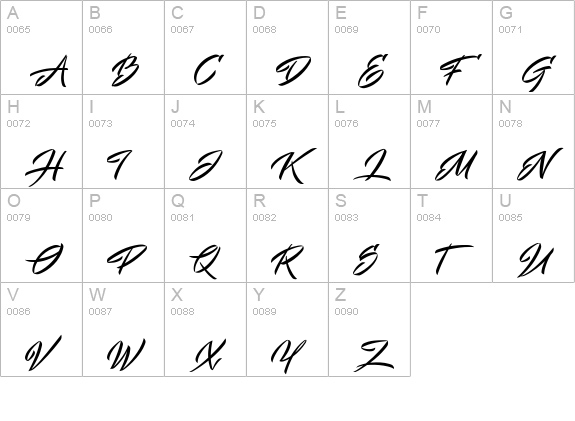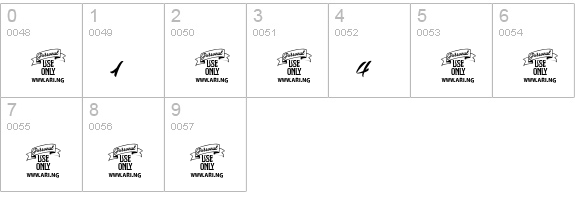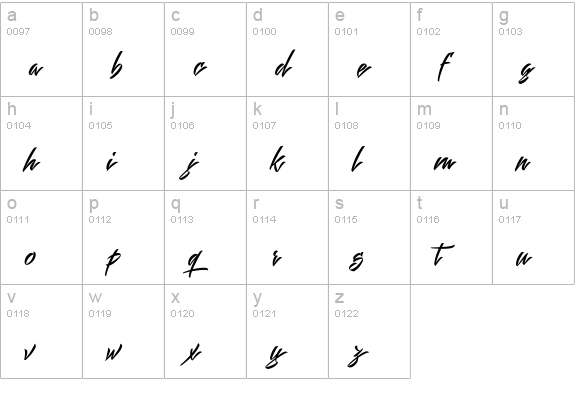
Mistuki 1 PERSONAL USE Font Details
Introducing Mistuki 1 PERSONAL USE, a stunningly versatile font that adds a touch of elegance and sophistication to any design project. With its clean lines and delicate curves, Mistuki 1 PERSONAL USE is perfect for creating beautiful typographic compositions, logos, branding materials, and more. This font effortlessly combines a modern aesthetic with a timeless appeal, making it suitable for a wide range of applications. Whether you're designing a website, crafting a digital presentation, or working on a print project, Mistuki 1 PERSONAL USE will elevate your work to new heights. But what sets Mistuki 1 PERSONAL USE apart is its availability – it's completely free! Say goodbye to expensive font licenses and hello to the freedom of creativity. You can freely download and use Mistuki 1 PERSONAL USE at FontsMarket.com, a trusted source for high-quality fonts. By downloading Mistuki 1 PERSONAL USE, you gain access to an extensive character set, including uppercase and lowercase letters, numbers, punctuation marks, and special glyphs. This broad range of characters allows you to create diverse and visually captivating designs that truly stand out. Mistuki 1 PERSONAL USE also offers a variety of stylistic alternates and ligatures, providing even more design possibilities. Its versatility ensures that your creations will never be limited, allowing you to express your unique style and vision with ease. Furthermore, Mistuki 1 PERSONAL USE is compatible with both Mac and Windows operating systems, ensuring seamless integration into your design workflow. It is also supported by popular design software, such as Adobe Photoshop, Illustrator, and InDesign, making it a hassle-free addition to your toolkit. In conclusion, Mistuki 1 PERSONAL USE is a remarkable font that combines elegance, versatility, and affordability. With its free availability for download at FontsMarket.com, it's never been easier to add a touch of sophistication to your design projects. So why wait? Unlock your creative potential with Mistuki 1 PERSONAL USE today!